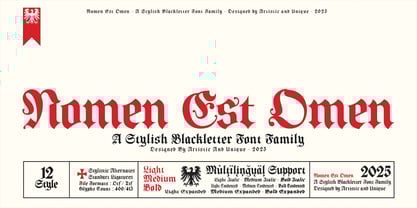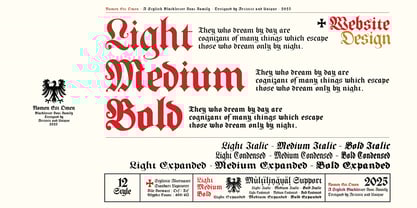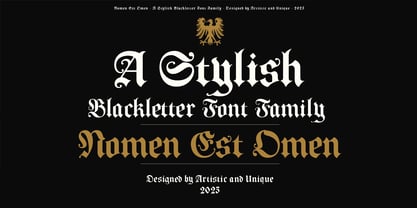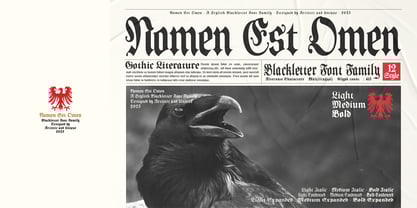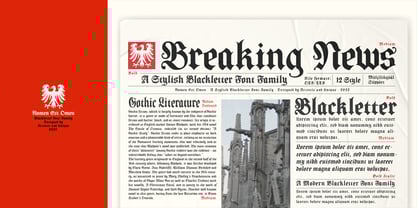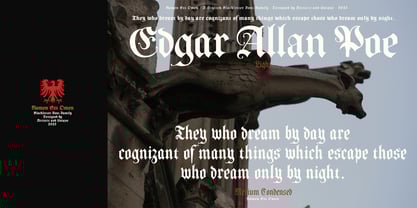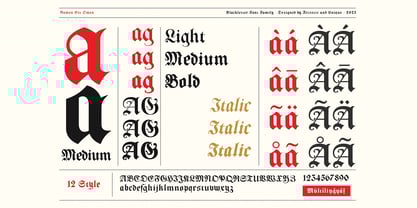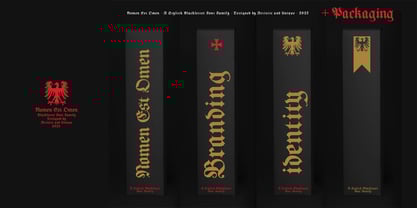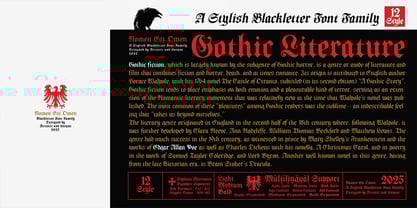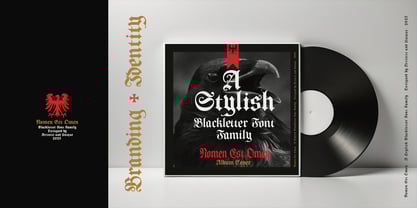
Nomen Est Omen
by Artisticandunique
The Nomen Est Omen Font Family was designed by Osman Taner Kucukgenc and published by Artisticandunique. Nomen Est Omen contains 12 styles and family package options. More about this family
Nomen Est Omen - Blackletter Font Family - 12 Styles - Multilingual Support. This font seamlessly blends tradition with contemporary aesthetics, making it an ideal choice for decorative purposes. The Nomen Est Omen font family is a sophisticated homage to the centuries-old Blackletter style, summarized in 12 distinct styles. Originating in Western Europe from the 12th to the 17th centuries, this font's modern design draws inspiration from Fraktur, the distinctive script of the Germanic regions. Blackletter fonts, including those in this collection, are renowned for their artistic appeal, making them perfect for a variety of applications. From adding substance to newspaper, magazine, and book titles to adding a rebellious touch to drink labels, heavy metal albums, or movie titles, their versatility is unrivaled. It also provides an effective visual for capturing a distinct appeal in body text for some specialized print publications. The font's rich multilingual support and alternative characters offer designers a wealth of options for a variety of projects. Features: - 12 different styles. - Rich glyph options. - Stylistic alternates / symbols. - Multilingual support. - Suitable for web and logo design. - Ideal for titles, logos, and posters. - Enhances certificates, diplomas, and degree presentations. - Perfect for branding, magazine layouts, and album covers. Whether you're working with movie titles or designing unique branding, this Blackletter font family provides the elegance and depth needed to create extraordinary designs. Enjoy.
Designers: Osman Taner Kucukgenc
Foundry: Artisticandunique
Technologies can change and evolve. However, no matter how much the production environments change, good typography created with the principles of creative and correct use of fonts will not change. Osman Taner Küçükgenç is an Istanbul based designer with a background in graphic design and advertising. He created his personal brand, Artistic and Unique, in order to create quality digital content. He spent years designing typography and typefaces, which are an important part of his academic education and therefore his profession. Fonts are an important tool in all visual communication. While designing the typeface to be unique, having a story behind it gives it character. It is intended to design this tool in the best and most functional way for the user.